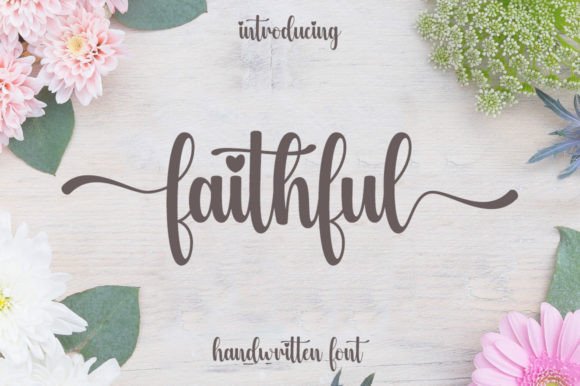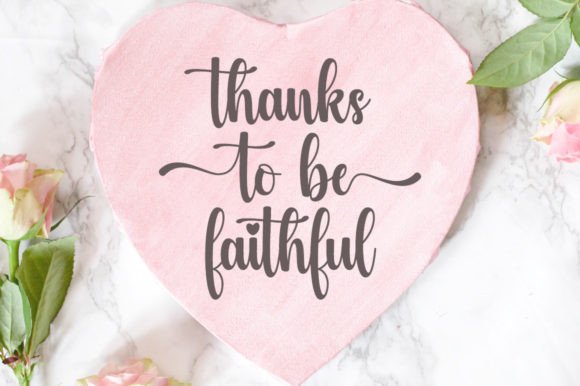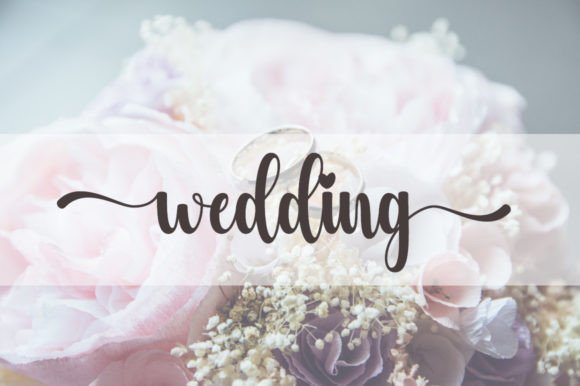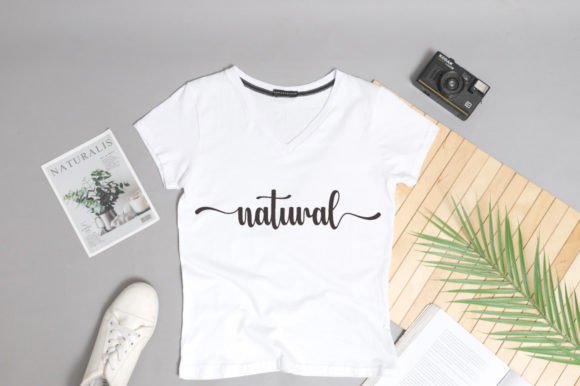
About Faithful
Faithful is a simple and friendly handwritten font. Whether you’re using it for crafts, digital design, presentations, or making greeting cards, this font has the potential to become your favorite go-to font, no matter the occasion. This font is PUA encoded, so you can easily access all the glyphs and swashes!